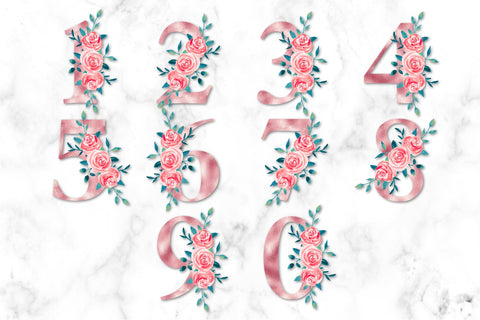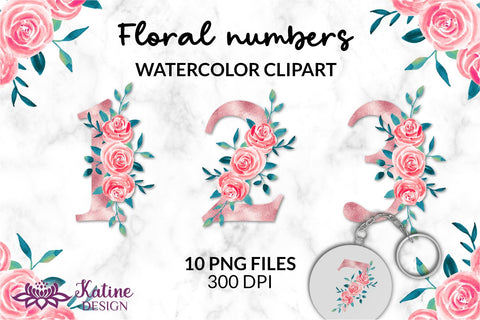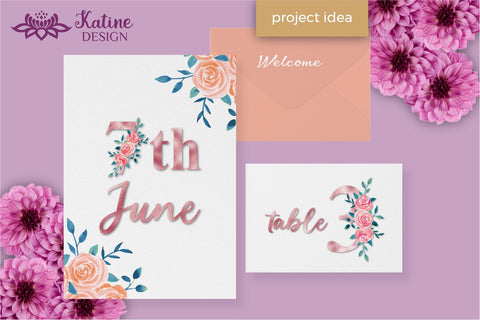
These sublimation backgrounds can be useful to make physical items as sublimation printing, printible wall art, t-shirt design, cake toppers, card making, website/blog use, graphics for cards, invitations, decorations, etc.